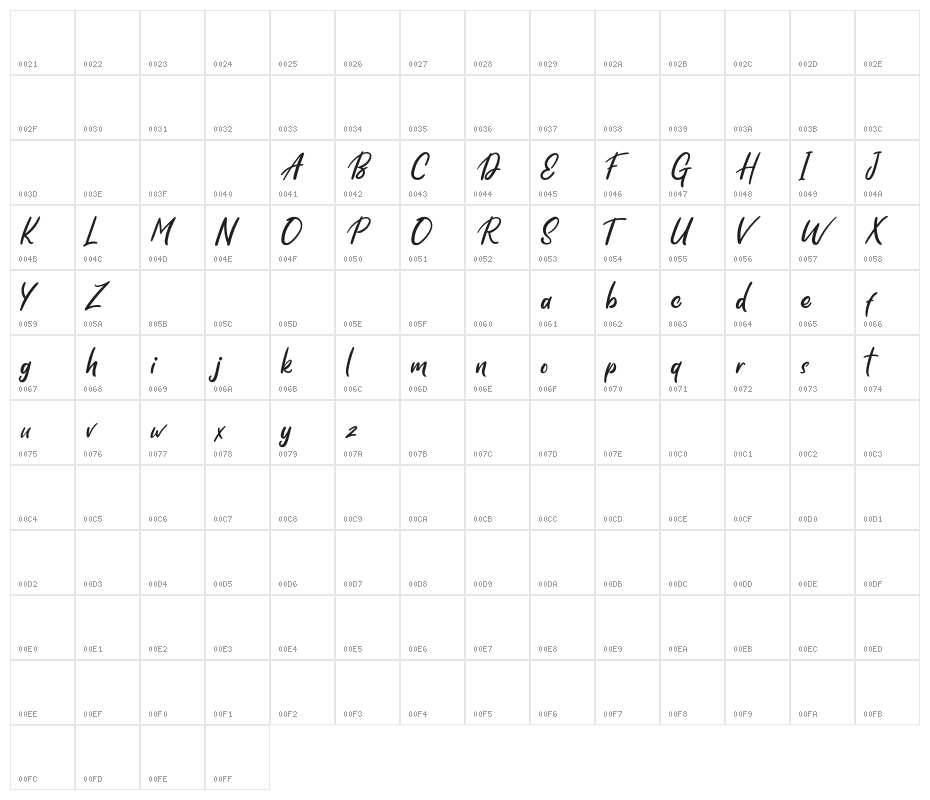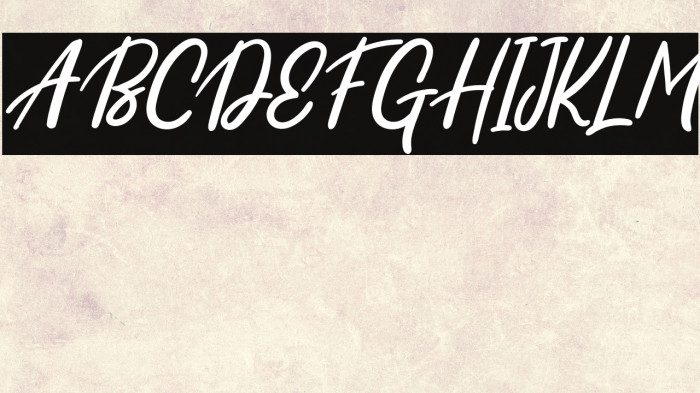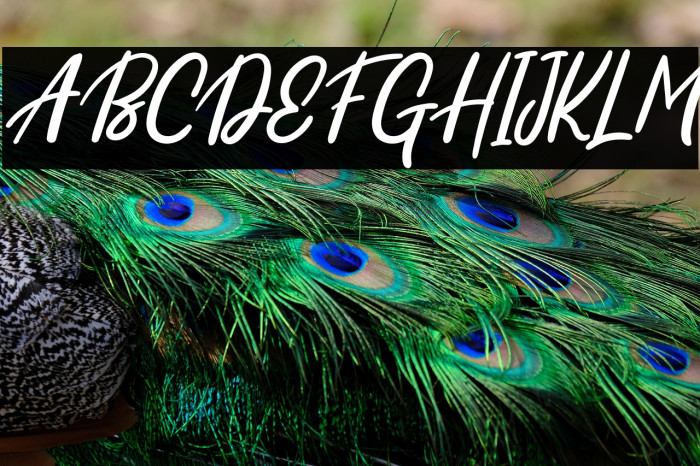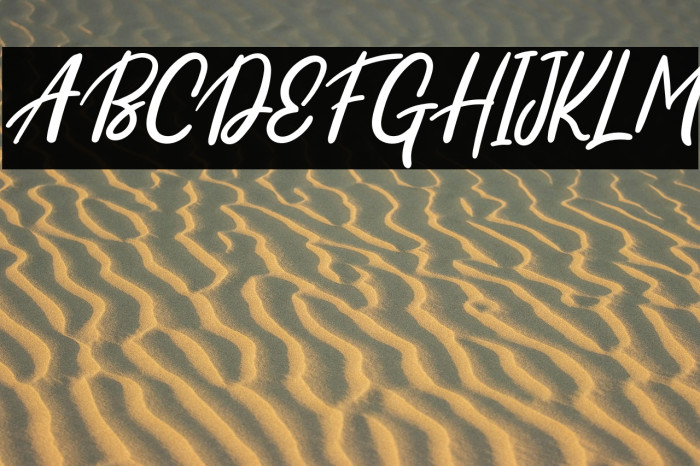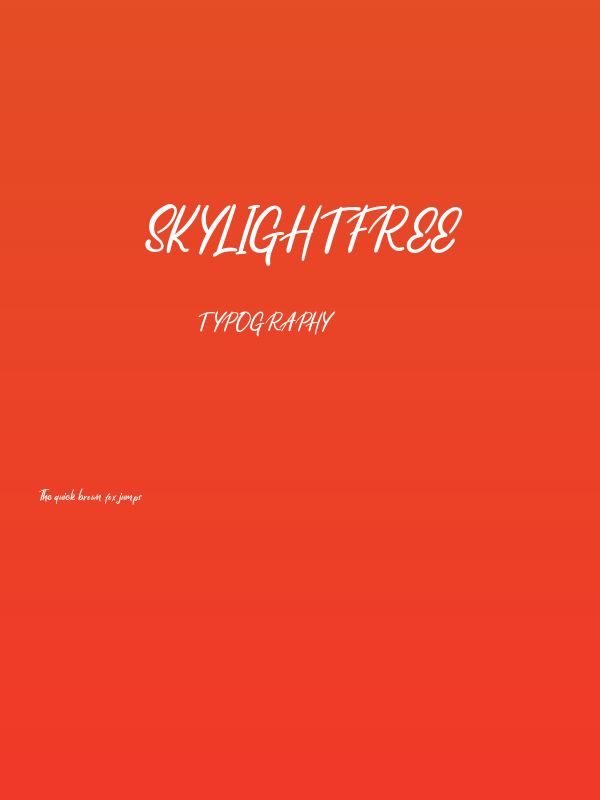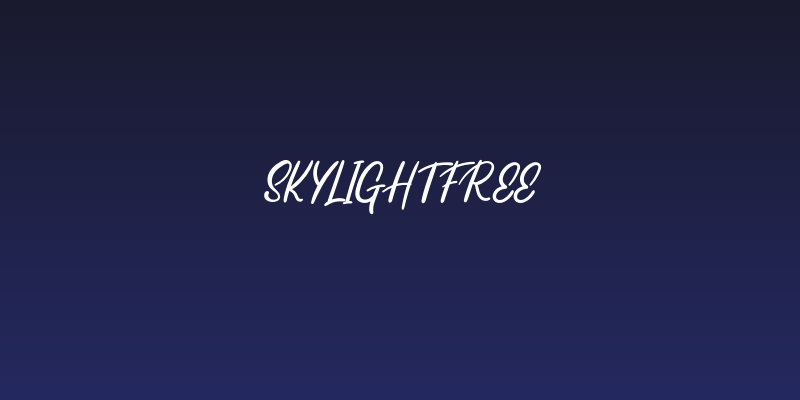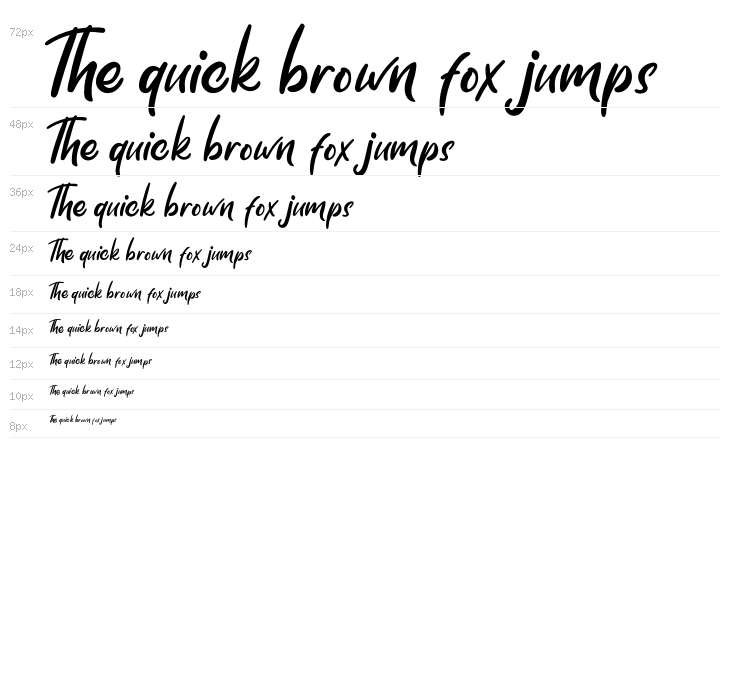
SkylightFREE Font
SkylightFREE Description
This font features a dynamic and flowing script style, characterized by its smooth, cursive strokes and elegant curves. The uppercase letters are bold and slightly slanted, giving a sense of movement and fluidity. The lowercase letters maintain a consistent flow, with some letters connecting seamlessly to the next. The overall appearance is both stylish and legible, making it suitable for a variety of creative applications. The font's design exudes a sense of modern sophistication while retaining a touch of classic charm.